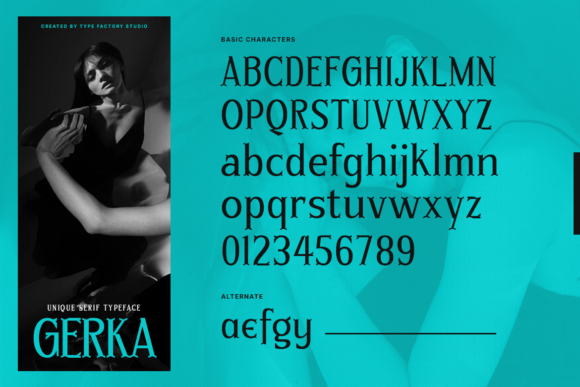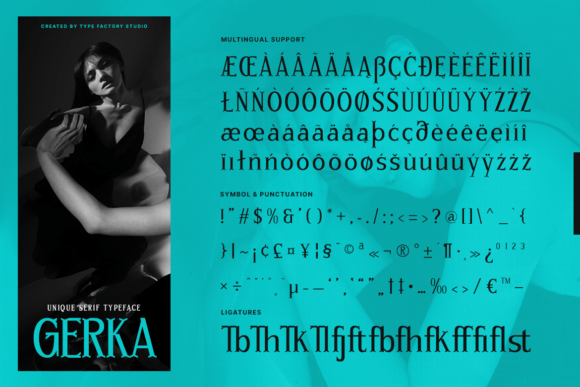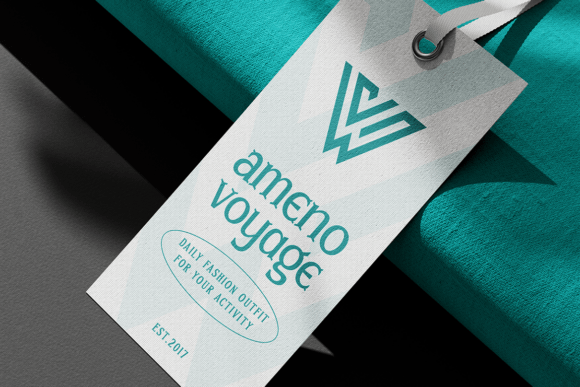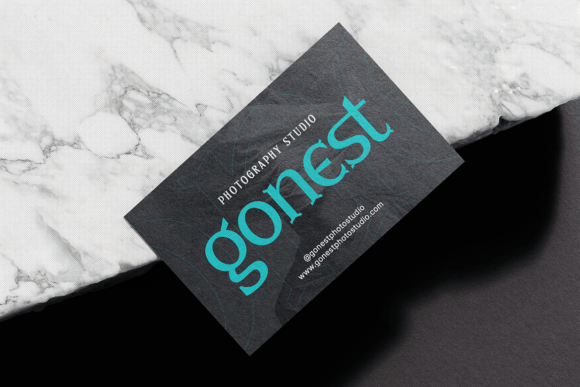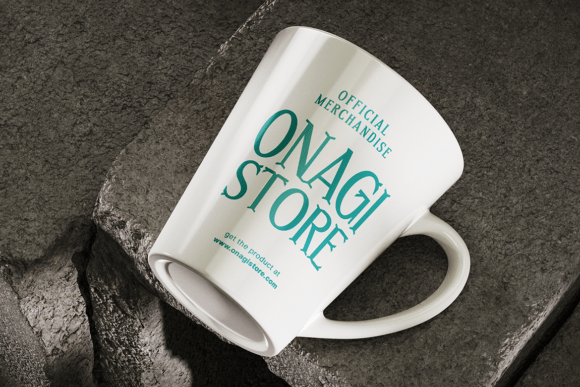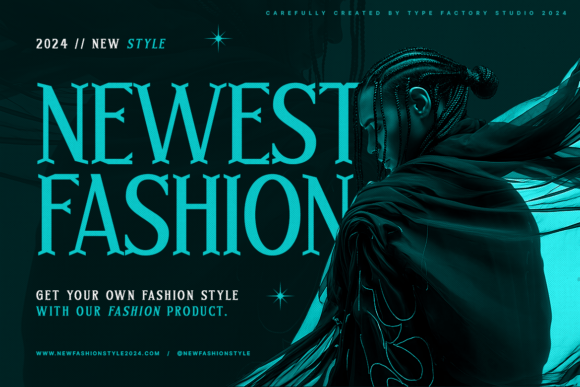
Introducing Gerka Font: The Bold, Unforgettable Statement for Your Brand
In the world of typography, a font can make or break a brand’s identity. For those who dare to be different, Gerka Font is here to revolutionize the way you make a statement. This unique serif typeface defies tradition with its sharp, architectural serifs and “thorn-like” accents, giving it a fierce, avant-garde edge that’s impossible to ignore.
The Unconventional Beauty of Gerka
Gerka’s design is a masterclass in contrasting elements. Its high-contrast strokes and unconventional geometry create a look that’s both high-fashion and darkly cinematic. This bold, eye-catching aesthetic is perfect for fashion houses, boutique studios, and creative agencies looking to make a lasting impression. Whether you’re aiming for a luxury “dark academia” aesthetic or a sharp, tech-forward brand identity, Gerka provides a professional, authoritative presence that’s hard to forget.
Unleash Your Creativity with Gerka’s Unique Features
- Sharp, Architectural Serifs: Gerka’s serifs are precision-cut, giving them a sharp, architectural feel that’s perfect for brands that value modernity and sophistication.
- “Thorn-like” Accents: The font’s unique accents add a touch of edginess, giving Gerka a bold, avant-garde personality that’s sure to turn heads.
- High-Contrast Strokes: Gerka’s high-contrast strokes create a sense of drama and elegance, making it perfect for luxury brands and high-end fashion labels.
- Unconventional Geometry: Gerka’s geometry is deliberately unconventional, giving it a distinctive look that’s both futuristic and timeless.
Who is Gerka Font For?
Gerka Font is perfect for:
- Fashion Houses: Gerka’s high-fashion aesthetic and luxurious feel make it an ideal choice for fashion brands looking to make a statement.
- Boutique Studios: Gerka’s unique personality and versatility make it perfect for boutique studios and creative agencies looking to stand out from the crowd.
- Creative Agencies: Gerka’s bold, avant-garde edge makes it an excellent choice for creative agencies looking to make a lasting impression.
How to Use Gerka Font Effectively
To get the most out of Gerka Font, consider the following tips:
- Use it as a Headline Font: Gerka’s bold, eye-catching aesthetic makes it perfect for headlines and titles.
- Pair it with a Neutral Font: Gerka’s unique personality can be balanced with a neutral font for body text, creating a harmonious contrast.
- Experiment with Colors: Gerka’s high-contrast strokes and unconventional geometry make it perfect for experimenting with bold, bright colors.
Gerka Font is a game-changer for brands looking to make a bold, unforgettable statement. Its unique blend of sharp, architectural serifs, “thorn-like” accents, and high-contrast strokes creates a look that’s both high-fashion and darkly cinematic. Whether you’re a fashion house, boutique studio, or creative agency, Gerka provides a professional, authoritative presence that’s impossible to ignore. So why settle for a traditional font when you can make a statement with Gerka?